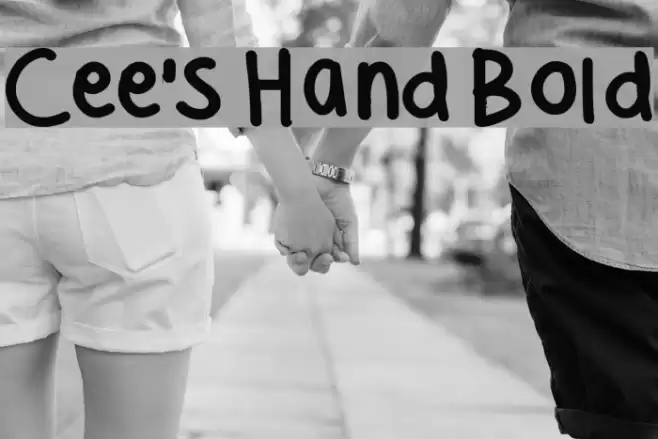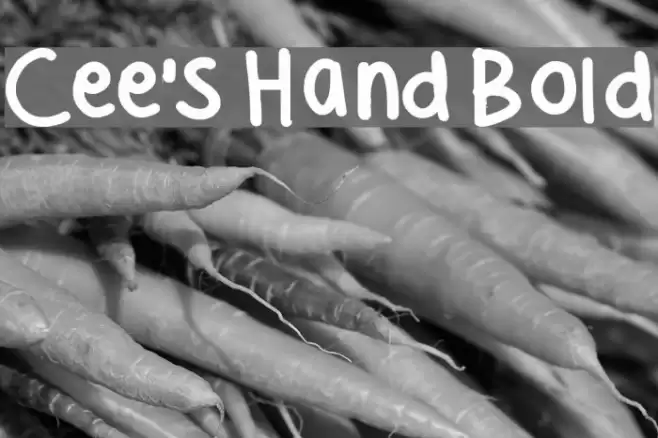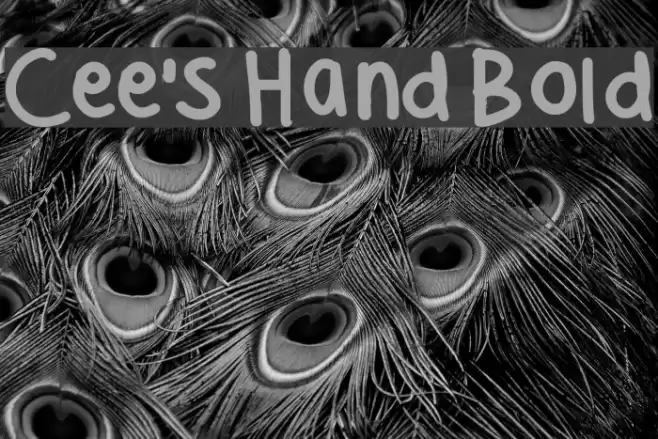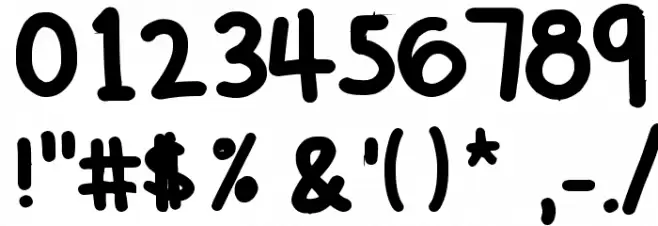
Cee's Hand Bold Font
Cee's Hand Bold Description
This font features a playful and casual handwritten style, characterized by its bold and rounded letterforms. The uppercase and lowercase letters maintain a consistent thickness, giving the font a uniform appearance. The characters are slightly irregular, adding to the hand-drawn aesthetic. The numbers and special characters follow the same style, ensuring a cohesive look across all glyphs. This font's informal and friendly nature makes it suitable for projects that require a personal touch.
A bold, playful handwritten font with rounded, consistent letterforms from Uncategorized fonts.
- Proposed Projects: Ideal for children's books, greeting cards, casual branding, and social media graphics.
- Overall Style: Casual, Playful
- Use Case: Headlines, Logos, Informal Text